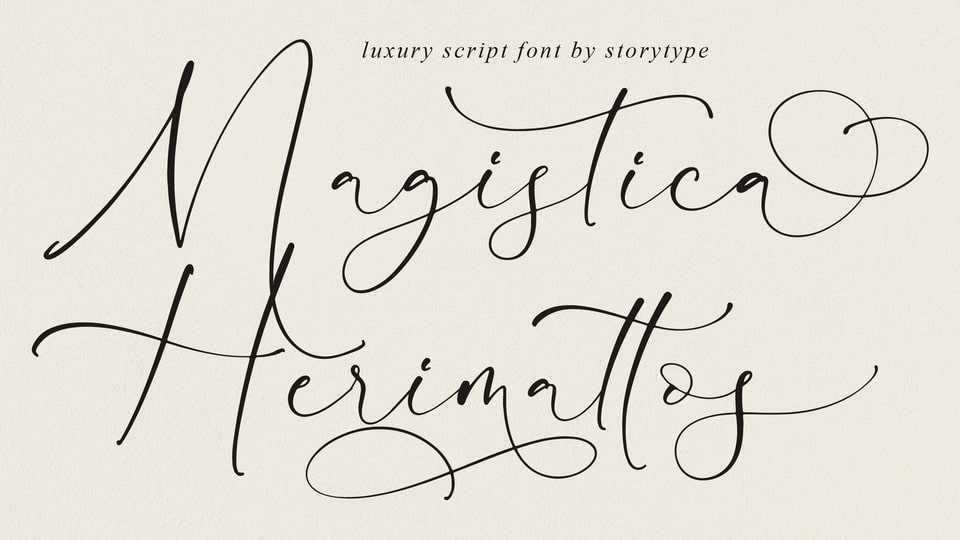
Download Magistica Herimattos font, a luxury script typeface that has own unique style and modern look. Magistica Herimattos font is perfect for an elegant and chic logo, book or movie title design, fashion brand, magazine, clothes, lettering, quotes, and so much more.